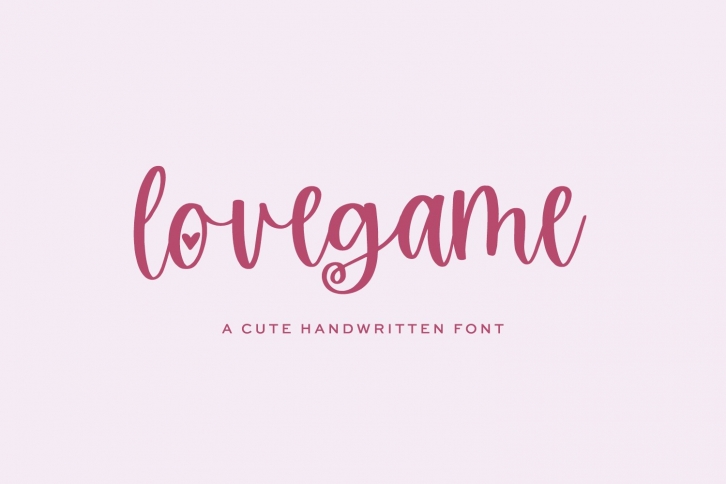
Meet Lovegame Script, a cute bounce calligraphy font with heart accents. Add Lovegame to your font collection just in time for Valentine’s Day & wedding season!
Lovegame Script is best for:
- Valentine’s Day, love, or wedding-themed projects / creations
- logos + branding
- crafting projects for Cricut or Silhouette since Lovegame features a smooth, clean edge perfect for vinyl cutting or SVG design
- header elements that need handwritten touch
- quote graphics for social media
- full upper + lowercase characters
- 11 alternate characters with hearts or cute flourishes - g, i, j, o, r, t, y, z, j, r, t
- 4 cute heart doodles - solid & outline
- 10 ligatures - bb, dd, ff, ll, mm, nn, oo, pp, ss, tt